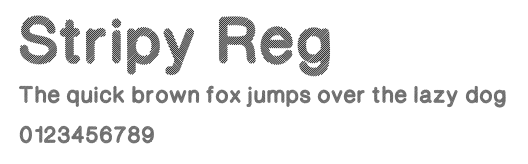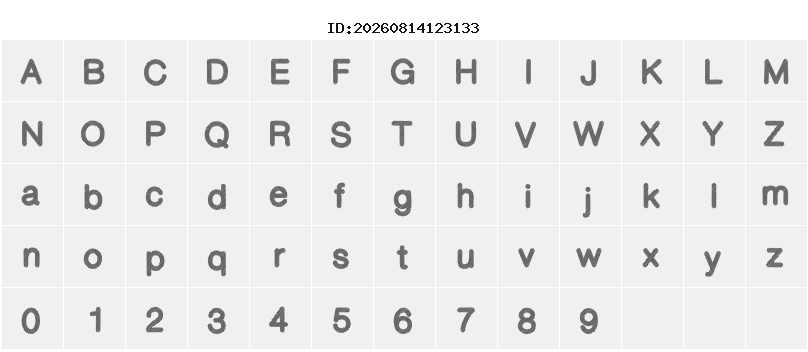
Stripy Reg Preview
• Font Name: Stripy Reg
• Full Font Name: Stripy-Reg
• Designer: Shara Weber
About Stripy Reg.ttf
Stripy Reg.ttf is a modern, elegant sans-serif font designed for ultimate readability and visual harmony. Perfect for branding, headlines, web design, and print materials.